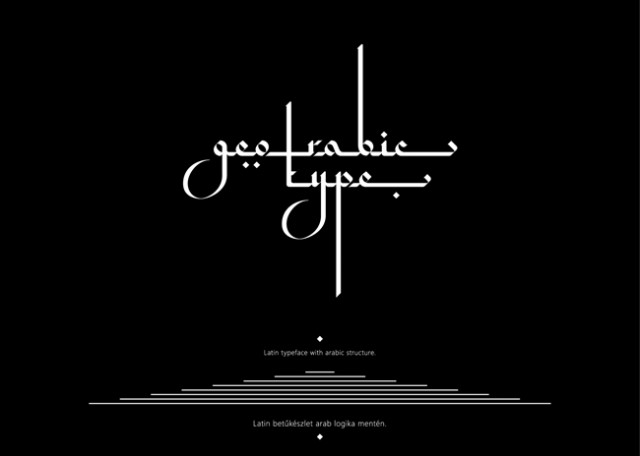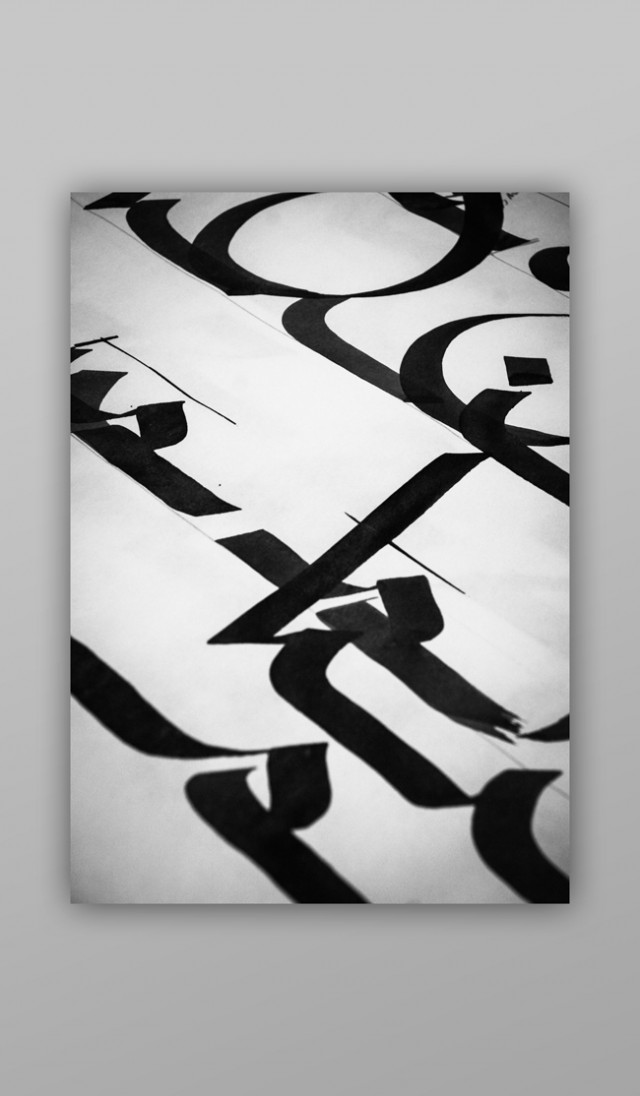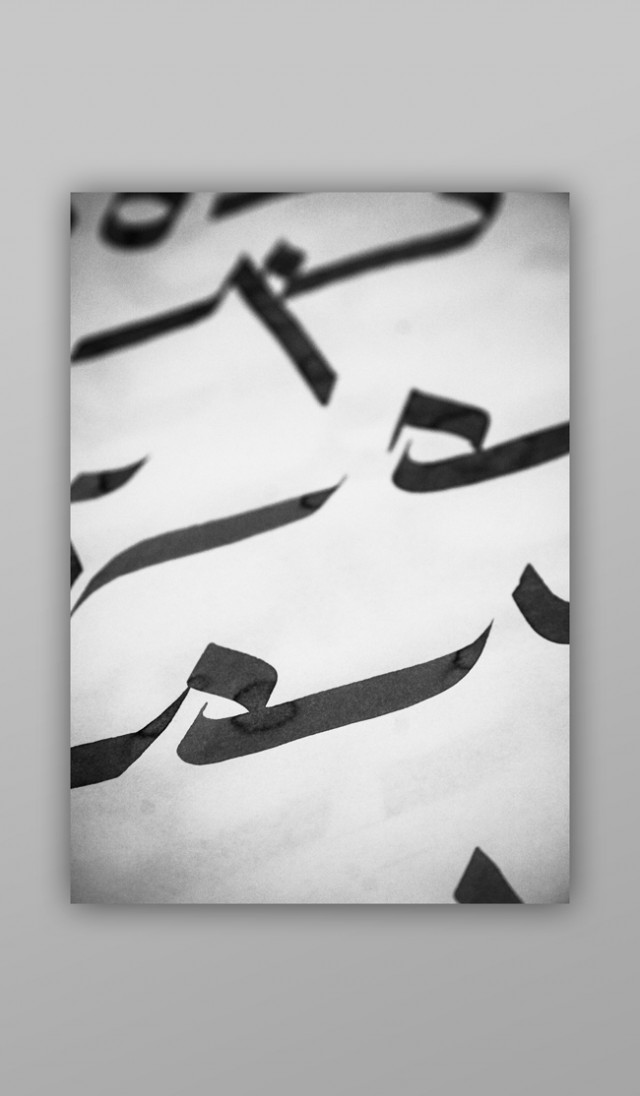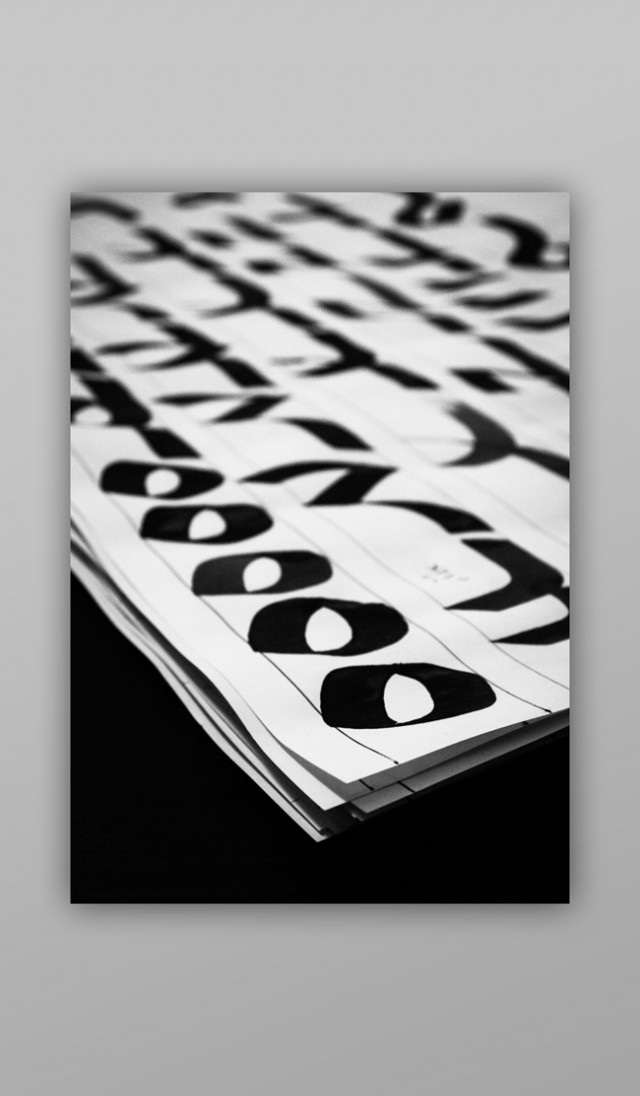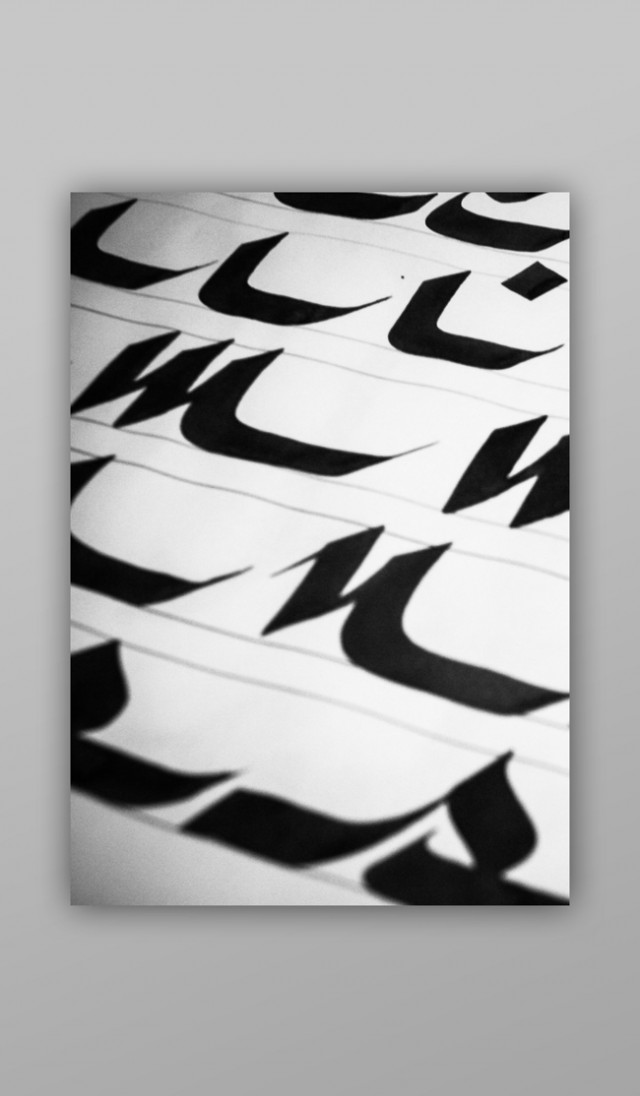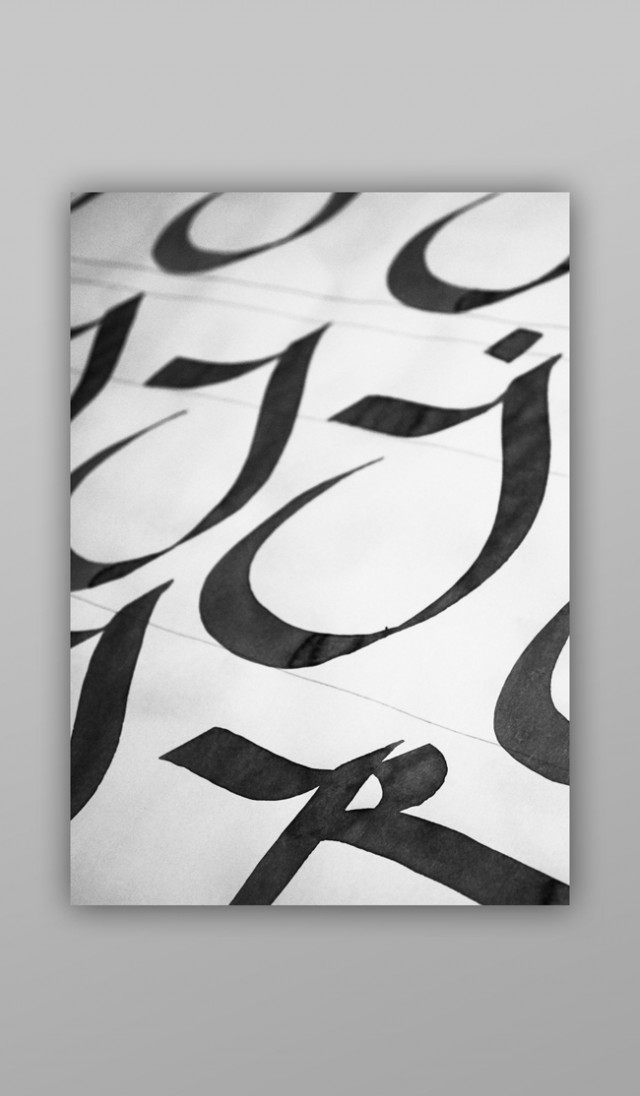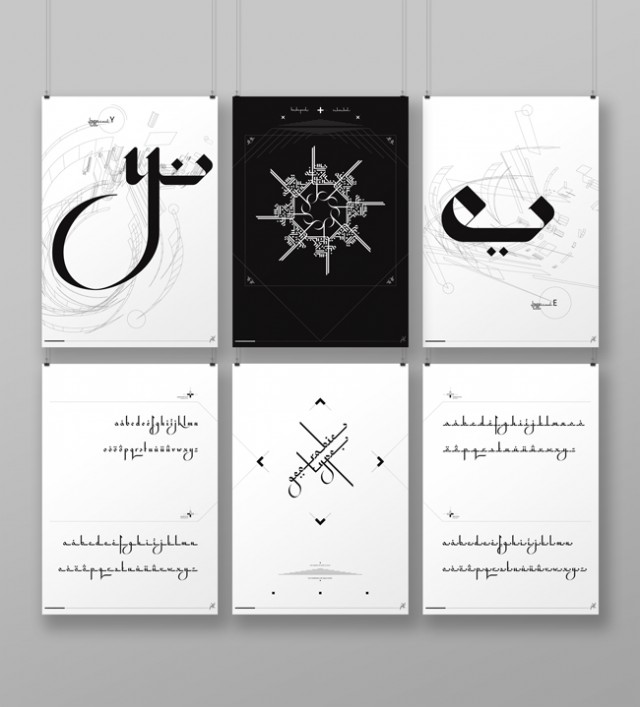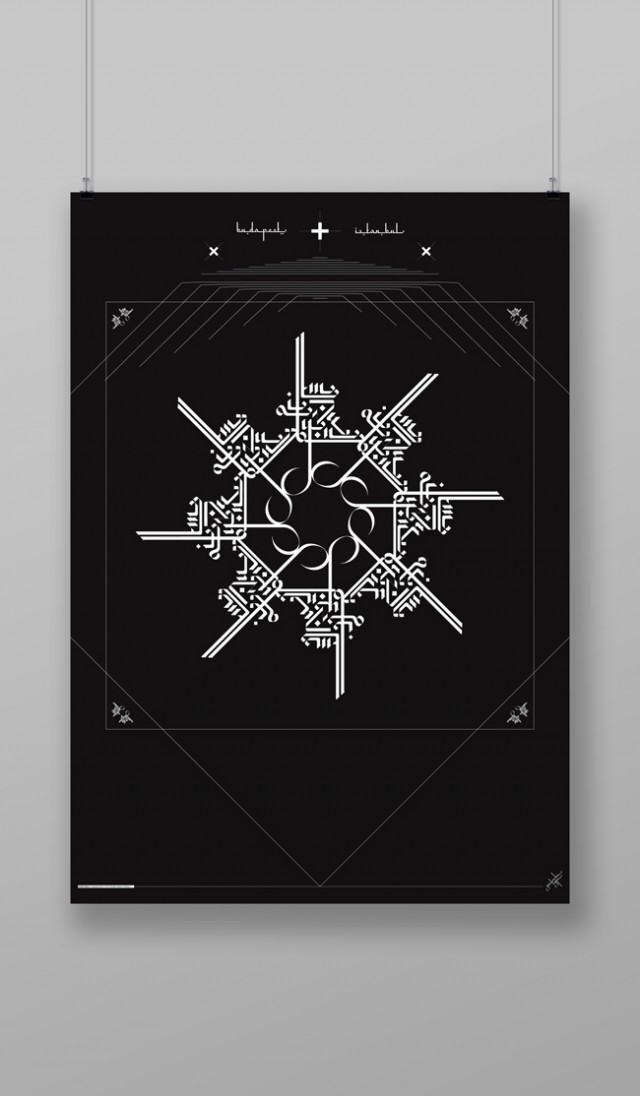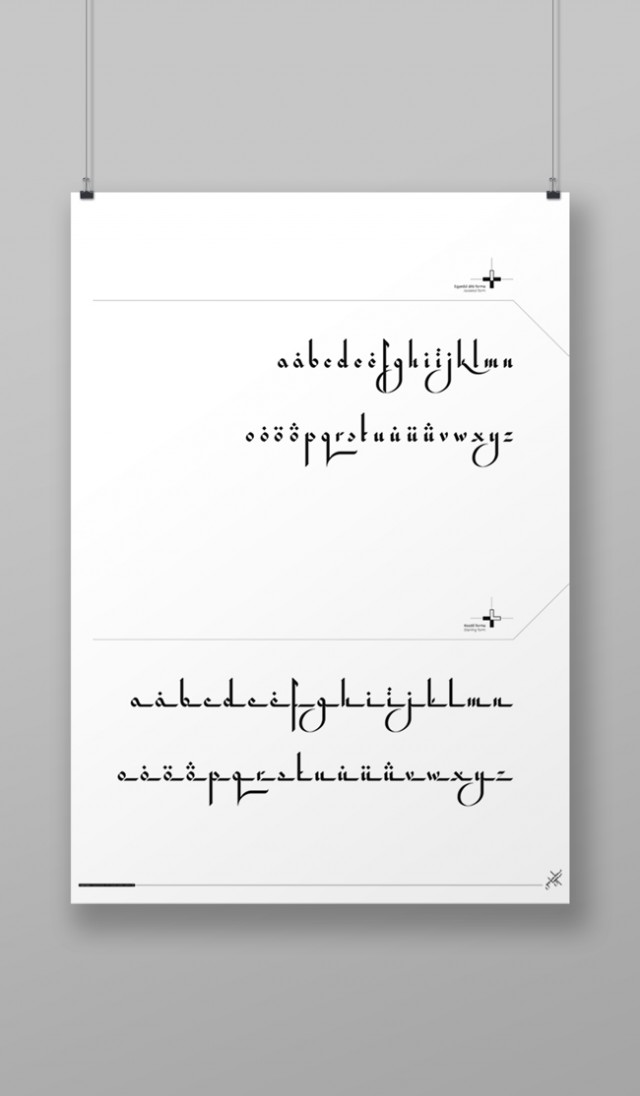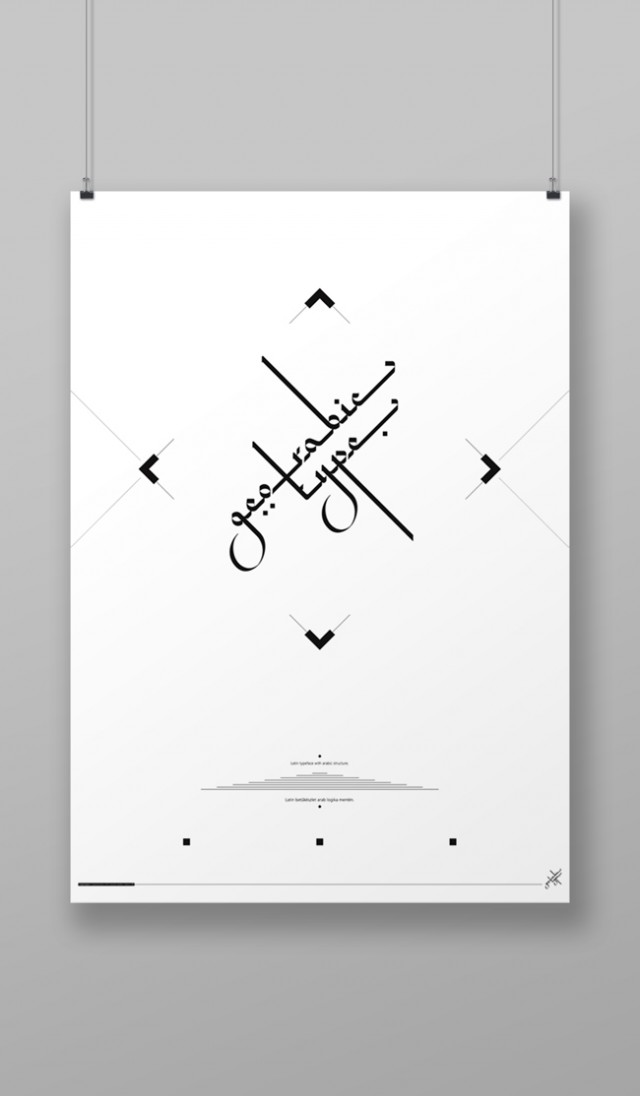
Georabic Typface is my diploma work at Hungarian University of Fine Arts / Graphic Design Department.
During my Erasmus studies in Istanbul I had the chance to learn a bit of arabic language and typography and I realized that the logic of arabic writing could be used for a calligraphic latin typeface too. I started with calligraphy to find the right way to create the glyphs and the connections.